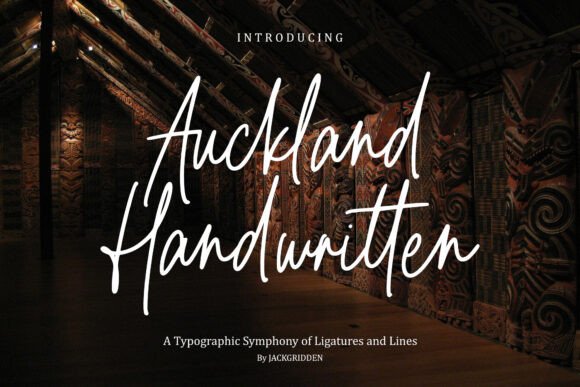
Auckland Handwritten Font: Elevate Your Designs with a Personal Touch
In the world of typography, a well-crafted font can make all the difference in bringing a design project to life. Auckland Handwritten is a beautifully designed monoline font that adds a personal touch to your creations, making them stand out with its unique, flowing handwritten style. This versatile font is perfect for a wide range of design applications, from professional branding and stationery to casual social media graphics and invitations.
The Unique Features of Auckland Handwritten
Monoline Design
Auckland Handwritten boasts a clean, uniform monoline design that gives the font a polished yet casual feel. The smooth and consistent lines ensure that your text looks elegant and sophisticated, making it suitable for both formal and informal designs.
180 Ligatures for Natural Letter Connections
One of the standout features of Auckland Handwritten is its extensive collection of 180 carefully crafted ligatures. These natural letter combinations enhance the legibility and beauty of your design, providing a seamless flow and authenticity to your text. The ligatures ensure that the connections between letters look natural and fluid, mimicking the way we write in longhand.
Perfect for a Wide Range of Design Projects
Auckland Handwritten is an incredibly versatile font that can be used for various design projects, including:
- Branding: Create a unique and memorable brand identity with this stylish font.
- Stationery: Add a personal touch to your letters, cards, and other stationery items.
- Logos: Design eye-catching logos that stand out with the elegant monoline style.
- Invitations: Make your invitations special with a font that exudes warmth and friendliness.
- Packaging: Enhance your product packaging with a font that adds a touch of sophistication.
- Social Media Posts: Elevate your social media graphics with a stylish and readable font.
Multi-Language Support
This font includes support for many languages with extended character sets, making it a great choice for designers working on international projects or with clients who require text in multiple languages.
Why Choose Auckland Handwritten?
There are several reasons why Auckland Handwritten stands out as a top choice for designers:
- Unique Style: The monoline handwritten style of Auckland Handwritten is both unique and versatile, allowing you to create designs that stand out.
- High Legibility: The font’s smooth lines and carefully crafted ligatures ensure high legibility, making it suitable for both headings and body text.
- Multi-Language Support: The font’s extended character set supports multiple languages, providing flexibility for international design projects.
Tips for Using Auckland Handwritten Effectively
Pairing with Other Fonts
To create visually appealing designs, consider pairing Auckland Handwritten with complementary fonts. For example, you can use a sans-serif font for headings and Auckland Handwritten for body text, or vice versa. This contrast can add depth and interest to your designs.
Adjusting Font Sizes
Experiment with different font sizes to find the perfect balance for your design. Auckland Handwritten looks great at both large and small sizes, making it suitable for a variety of applications.
Utilizing Ligatures
Make the most of Auckland Handwritten’s ligatures by enabling them in your design software. This will ensure that your text has a natural, handwritten feel that enhances the overall aesthetic of your design.
Auckland Handwritten is a beautifully crafted monoline font that brings a personal touch to your design projects. With its unique, flowing handwritten style, smooth and consistent lines, and 180 carefully crafted ligatures, this font is perfect for a wide range of design applications. Whether you’re working on branding, stationery, logos, invitations, packaging, or social media graphics, Auckland Handwritten adds a friendly, stylish element that elevates your designs. Easy to use and integrate, with multi-language support, this versatile font is an excellent addition to any designer’s toolkit.